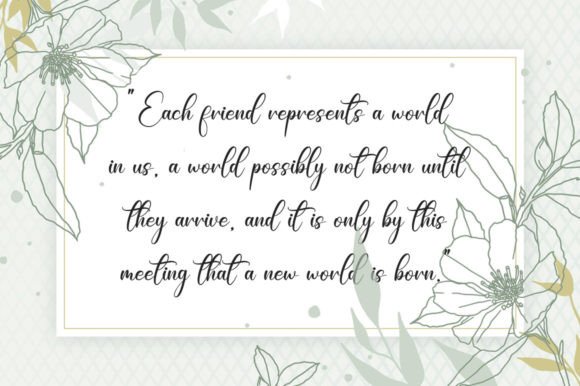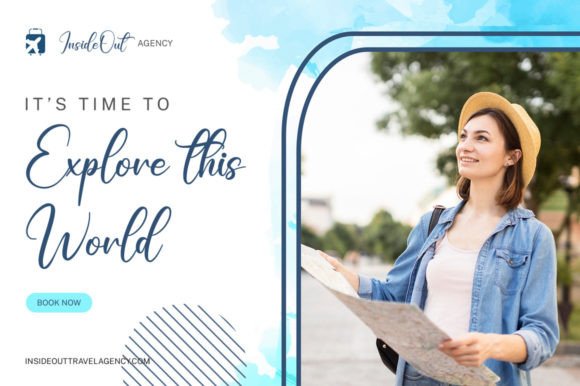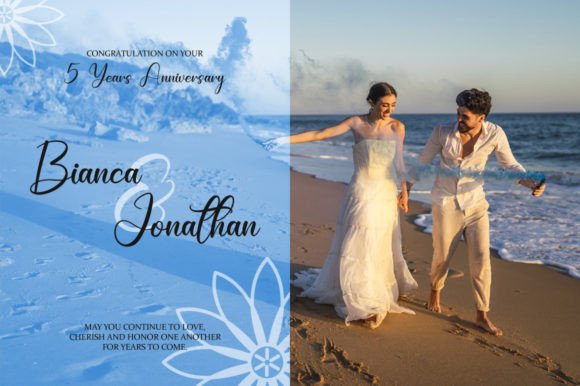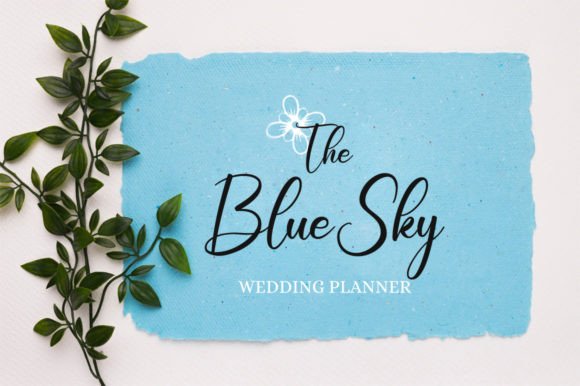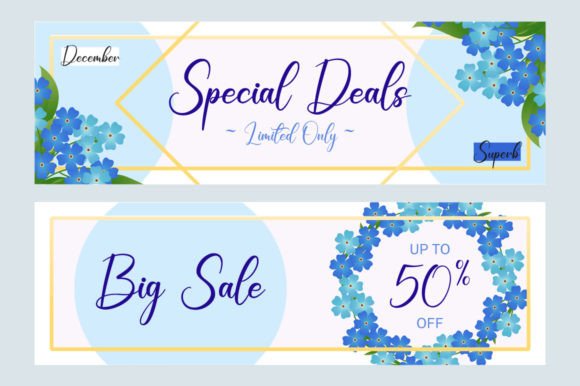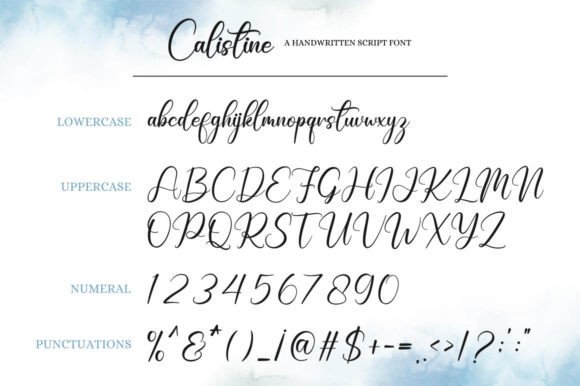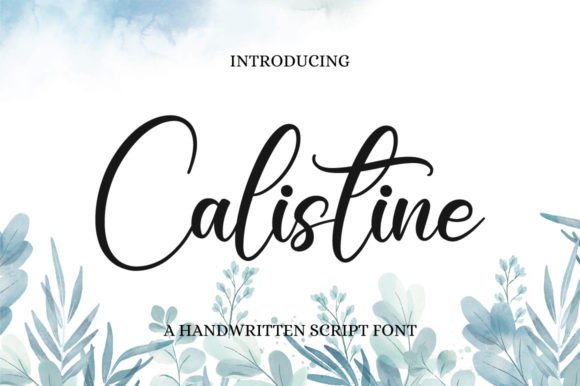
Discover the Elegance of Calistine Font: A Timeless Handwritten Choice
In the world of typography, fonts play a crucial role in conveying messages, expressing emotions, and creating a lasting impression. For designers, crafters, and anyone looking to add a personal touch to their projects, the right font can make all the difference. This is where Calistine Font comes into play – a lovely and timeless handwritten font that has been gaining popularity for its elegance and versatility. In this article, we’ll dive into the features, benefits, and uses of Calistine Font, exploring why it’s the best choice for creating eye-catching logos, branding, and quotes.
What is Calistine Font?
Calistine Font is a beautifully crafted handwritten font that exudes warmth, sophistication, and a touch of classic charm. Its unique, flowing script is reminiscent of traditional calligraphy, yet it maintains a modern and approachable feel. This font is designed to be highly legible and versatile, making it suitable for a wide range of applications, from digital designs to print materials.
Key Features of Calistine Font
- Timeless Appeal: Calistine Font boasts a classic, timeless look that never goes out of style. Its elegant strokes and beautiful letterforms make it perfect for creating designs that require a touch of sophistication.
- Handwritten Charm: The font’s handwritten nature gives it a personal and intimate feel, making it ideal for projects that require a human touch.
- High Legibility: Despite its ornate appearance, Calistine Font is highly legible, ensuring that your messages are conveyed clearly and effectively.
- Versatility: Calistine Font can be used across various platforms and mediums, including logos, branding, quotes, posters, and more.
Why Choose Calistine Font?
For designers and crafters looking for a font that can elevate their projects, Calistine Font stands out for several reasons:
- Customization: The font offers a range of customization possibilities, allowing you to adjust it to fit your project’s specific needs.
- Unique Identity: With Calistine Font, you can create designs that stand out from the crowd, thanks to its distinctive and elegant appearance.
- Support for Various Languages: Calistine Font supports multiple languages, making it a great choice for global brands and projects.
Using Calistine Font for Logos, Branding, and Quotes
Calistine Font’s versatility makes it an excellent choice for various applications:
- Logos: Create memorable and impactful logos that capture the essence of your brand with Calistine Font’s elegant and timeless design.
- Branding: Use Calistine Font across your branding materials to maintain consistency and convey a sophisticated image.
- Quotes: Add a touch of elegance to your quotes and sayings with Calistine Font, making them perfect for sharing on social media or printing on merchandise.
Tips for Maximizing Calistine Font’s Potential
To get the most out of Calistine Font, consider the following tips:
- Pair it Wisely: Combine Calistine Font with complementary fonts to create visual interest and hierarchy in your designs.
- Experiment with Colors: Play with different colors to find the perfect match that enhances Calistine Font’s beauty and suits your project’s theme.
- Adjust Letter Spacing: Fine-tune the letter spacing to ensure optimal readability and aesthetic appeal.
Calistine Font is a stunning handwritten font that offers a perfect blend of elegance, versatility, and timeless appeal. Whether you’re a designer, crafter, or simply someone looking for a beautiful font to enhance your projects, Calistine Font is an excellent choice. Its high legibility, customization possibilities, and wide range of applications make it ideal for creating eye-catching logos, branding, and quotes. Discover the beauty of Calistine Font and elevate your designs to new heights of sophistication and charm.